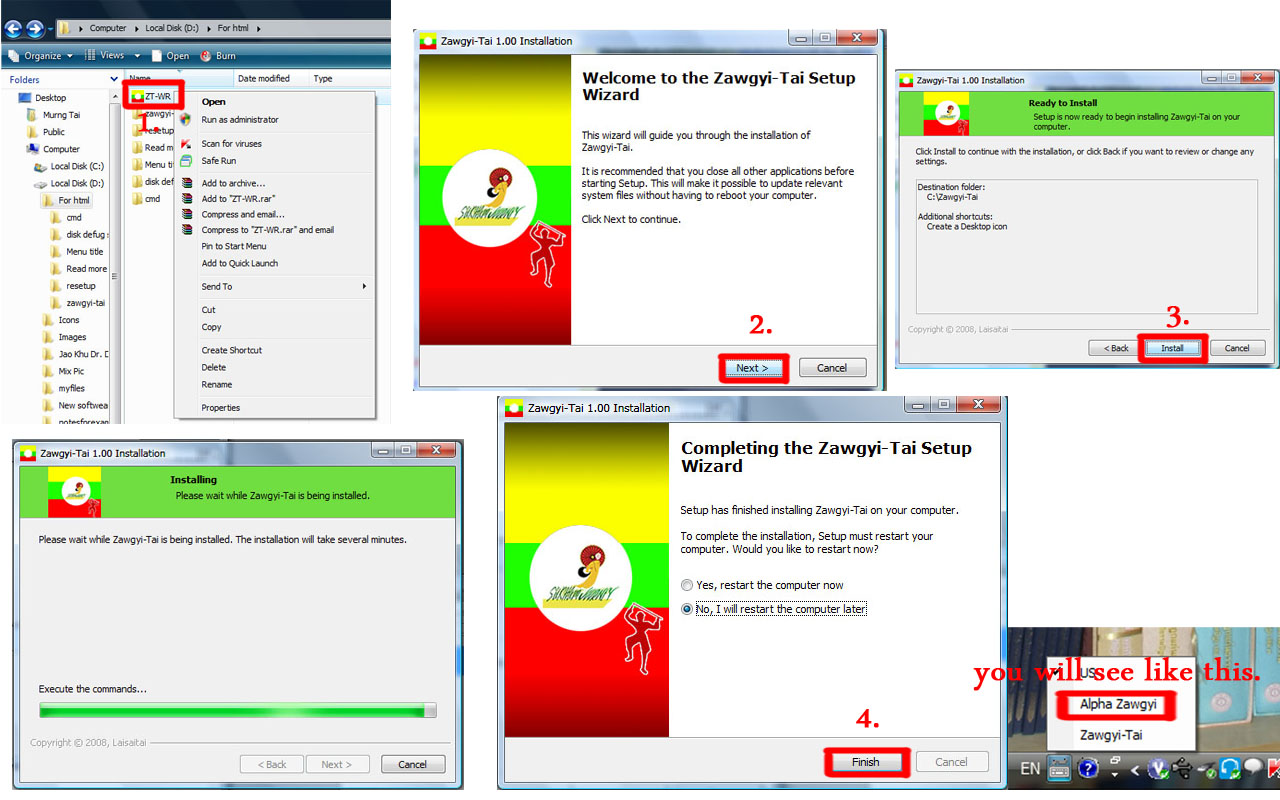
Type or paste zawgyi font in the first box and click on convert bottom below. Zawgyi font is a predominant typeface used for burmese language text on websites. Burmese font converter of zawgyi to unicode, unicode to zawgyi. Posted by zmc at may.